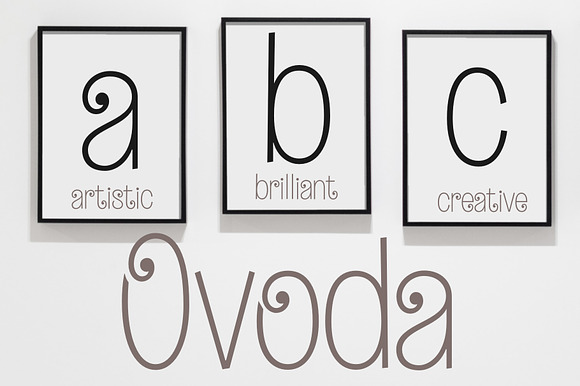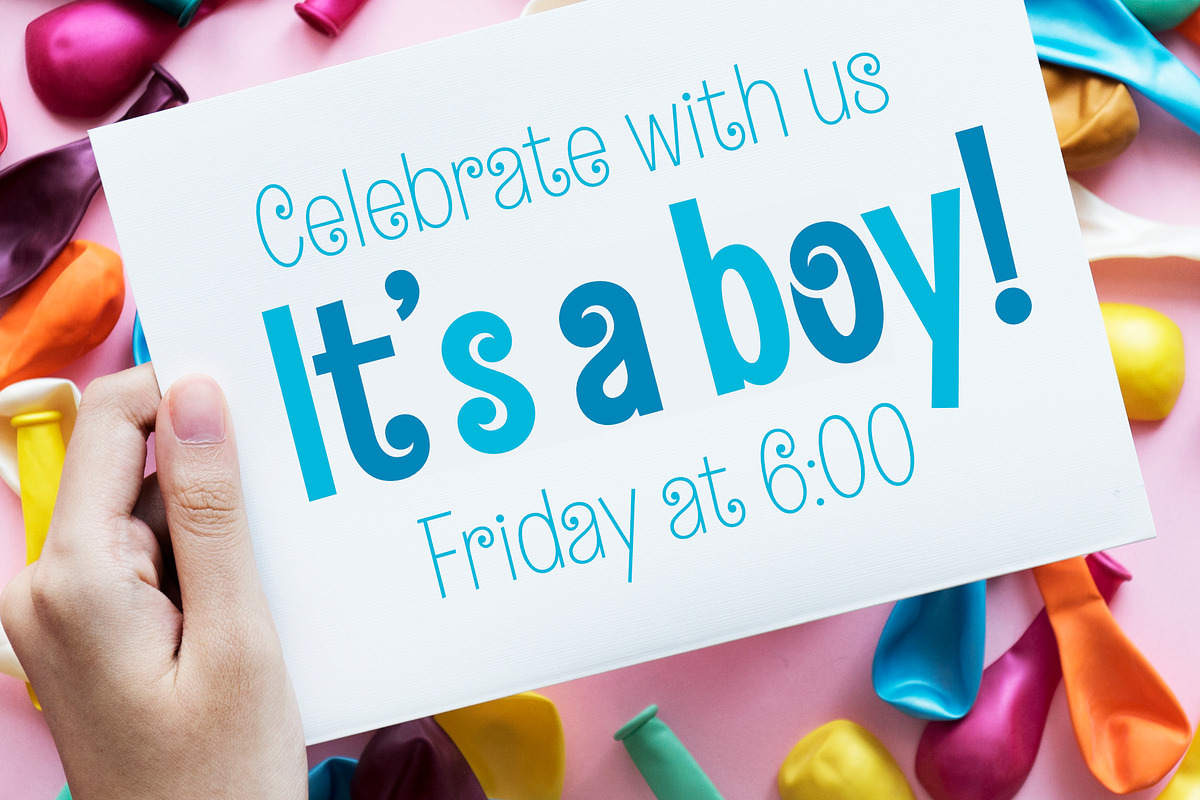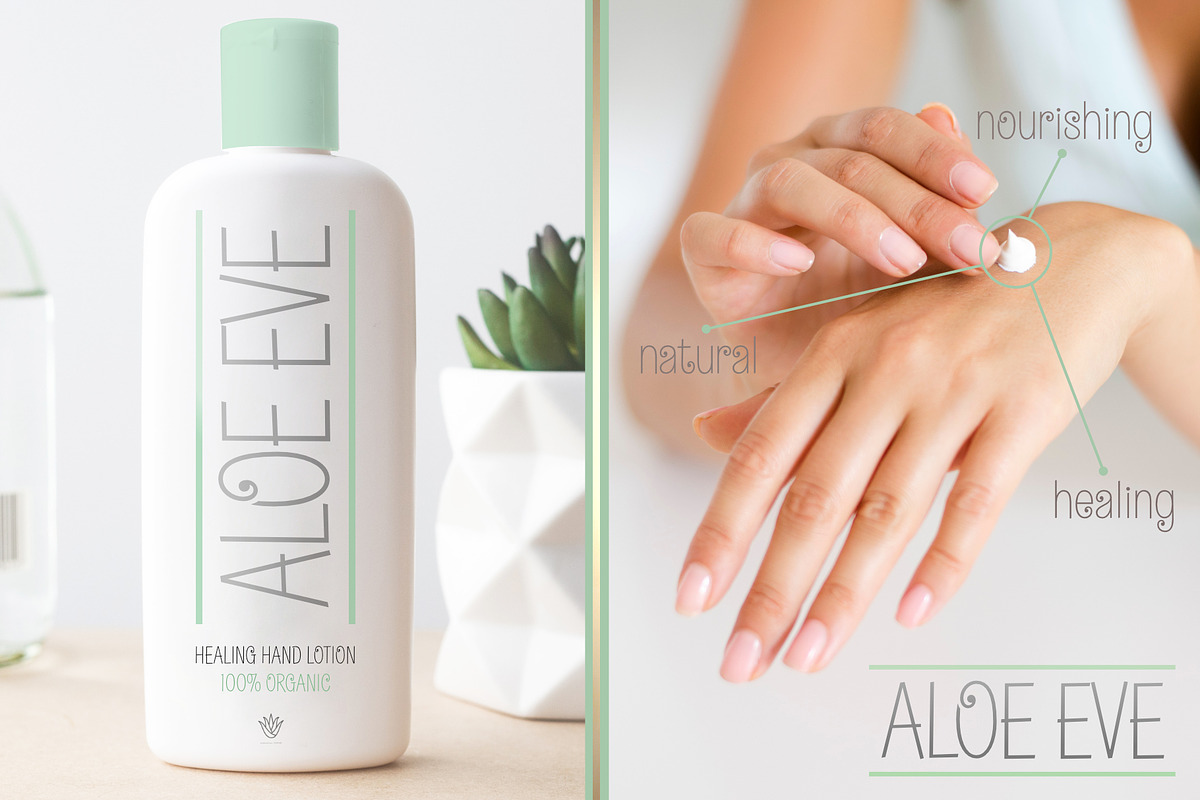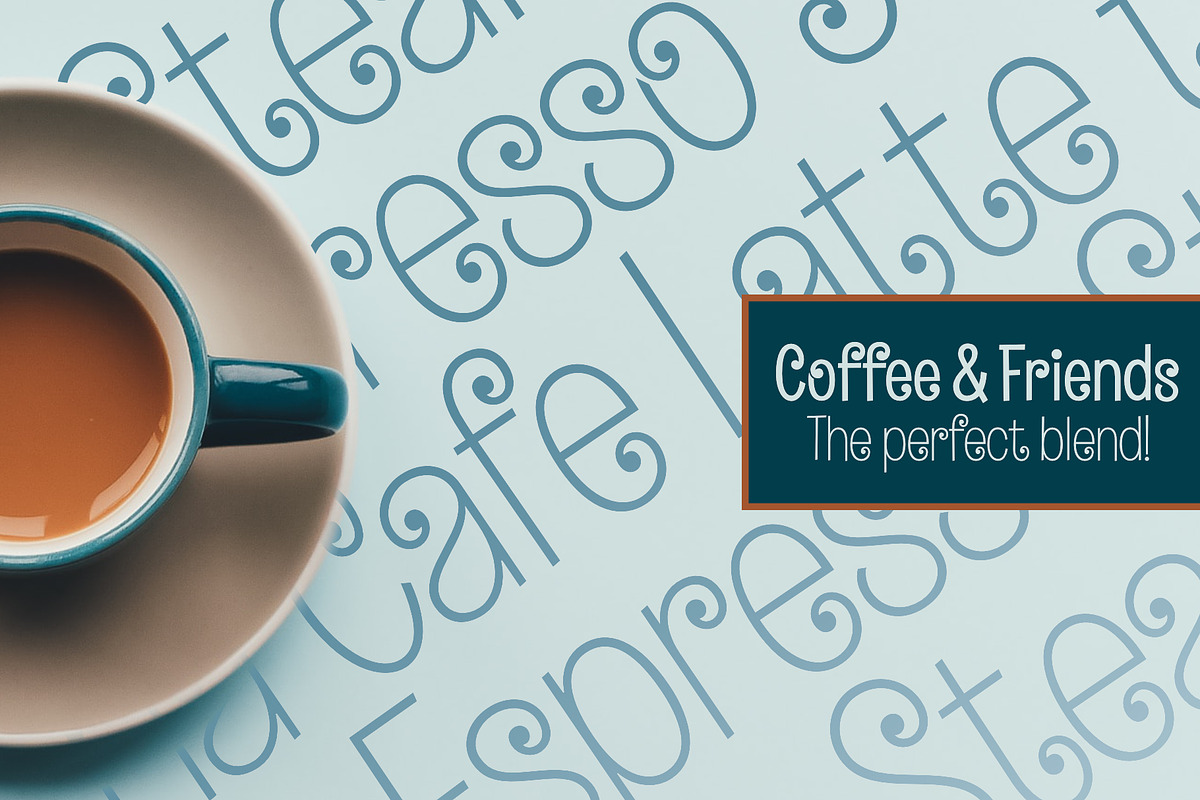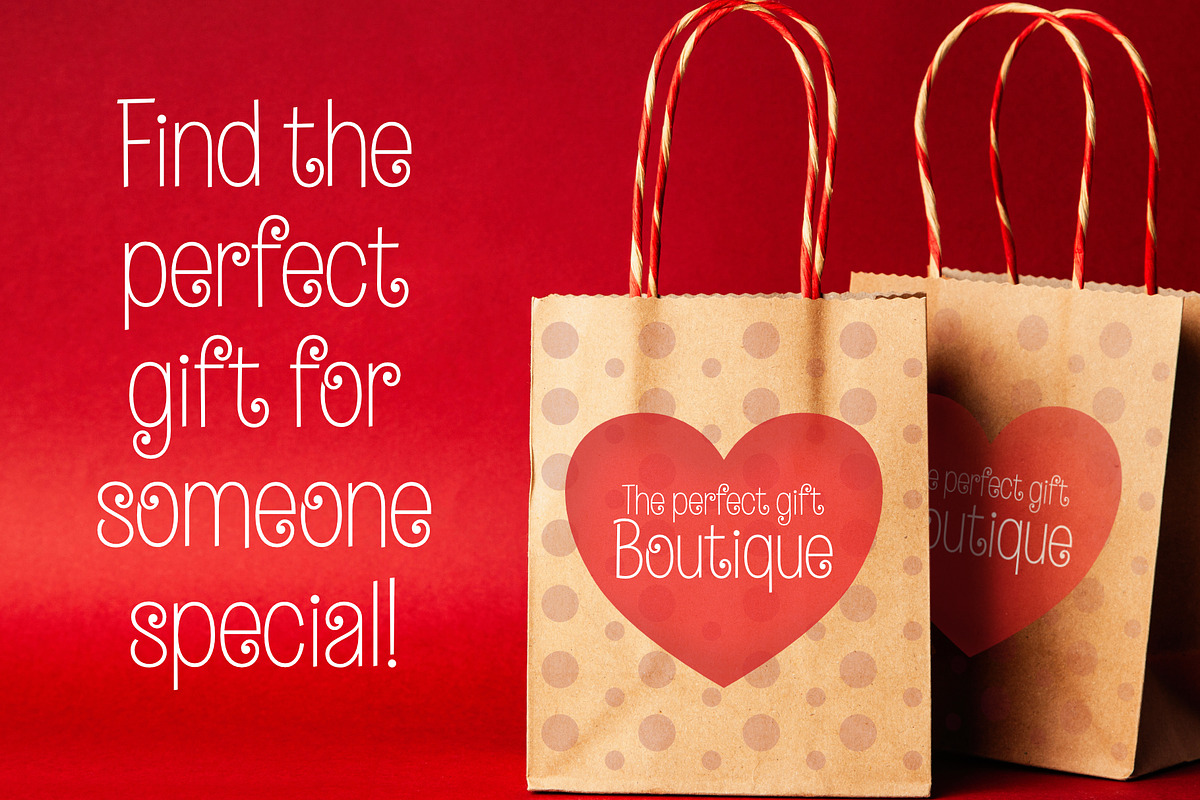
Ovoda - an elegant, playful font!
INTRODUCING OVODA Whatever the application, Ovoda is posed to add a youthful yet refined touch to any design. Use Ovoda's three included weights to pucker up your latest packaging or liven up your layouts. Ovoda is a must have for your typography toolset.
- Use Ovoda's three included weights to pucker up your latest packaging or liven up your layouts.
- Ovoda Light
- Ovoda Medium
- Ovoda Bold